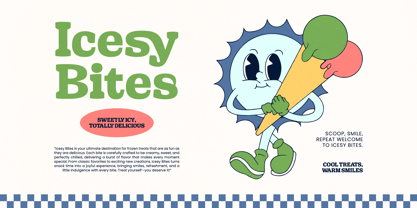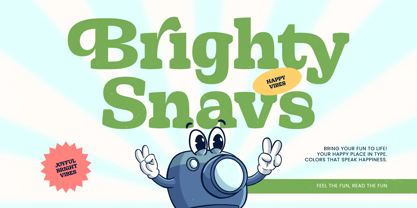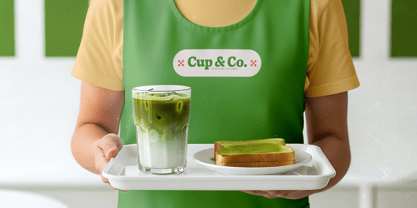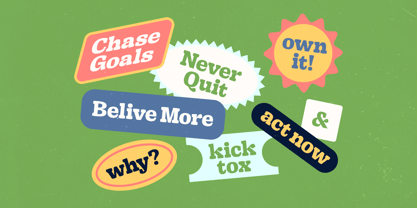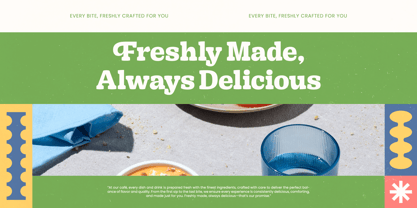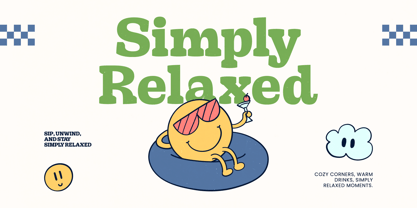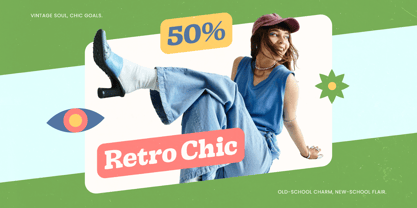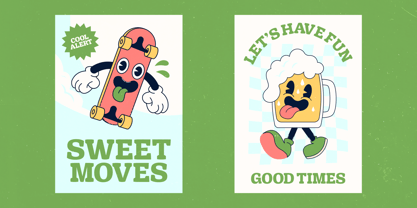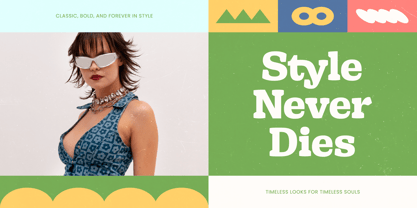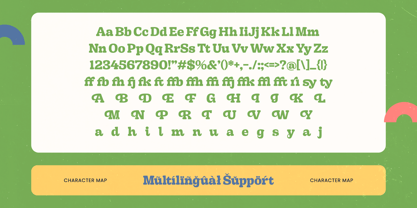
Brighty Snavs
Brighty Snavs. This typeface is designed to turn heads and spark joy, making it the ultimate tool for expressive and vibrant design projects.
The visual language of this typeface is rooted in the playful world of vintage cartoons and hand-drawn signage. It evokes a sense of nostalgic warmth, drawing inspiration from classic 1970s aesthetics to create an atmosphere that is both familiar and excitingly new.
As a modern serif display, this font offers a sophisticated luxury typography feel with its stunning high-contrast serif details. Every glyph is crafted for maximum branding impact, making it a versatile editorial font for both print and digital media environments.
Embracing the rising modern serif trend, this typeface is a perfect choice for designers seeking high-quality editorial display fonts. Its focus on character-driven typography ensures that your work stands out in a crowded market of generic designs.